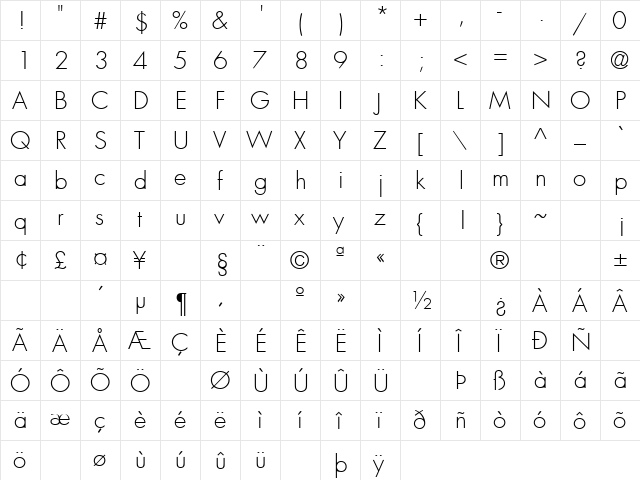
Loving 7 Regular
Design Context for Loving 7 Typeface
Loving 7 offers clean, dependable letterforms without strong stylistic allegiance, making it a practical choice for designers who need flexibility.
Pro Tip: Use Loving 7 in both headline and body roles to test its range before committing to a single application.